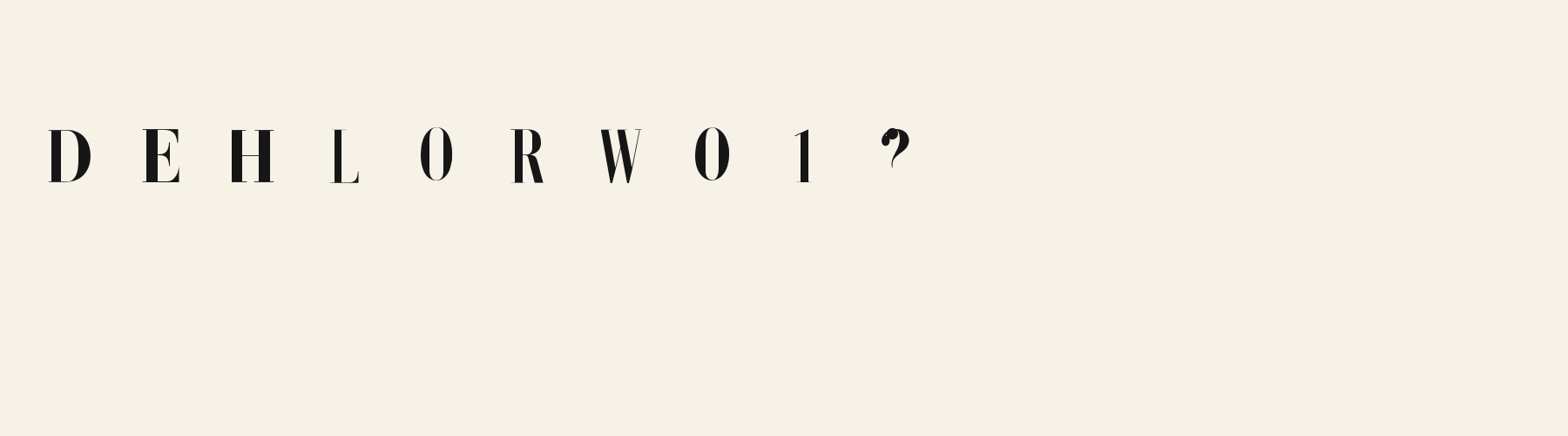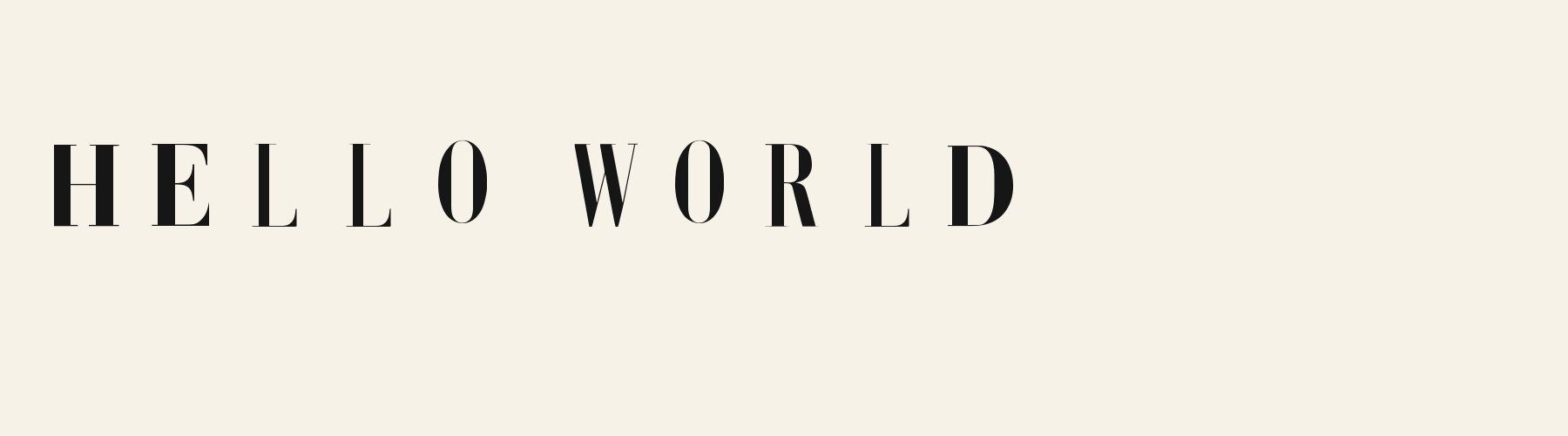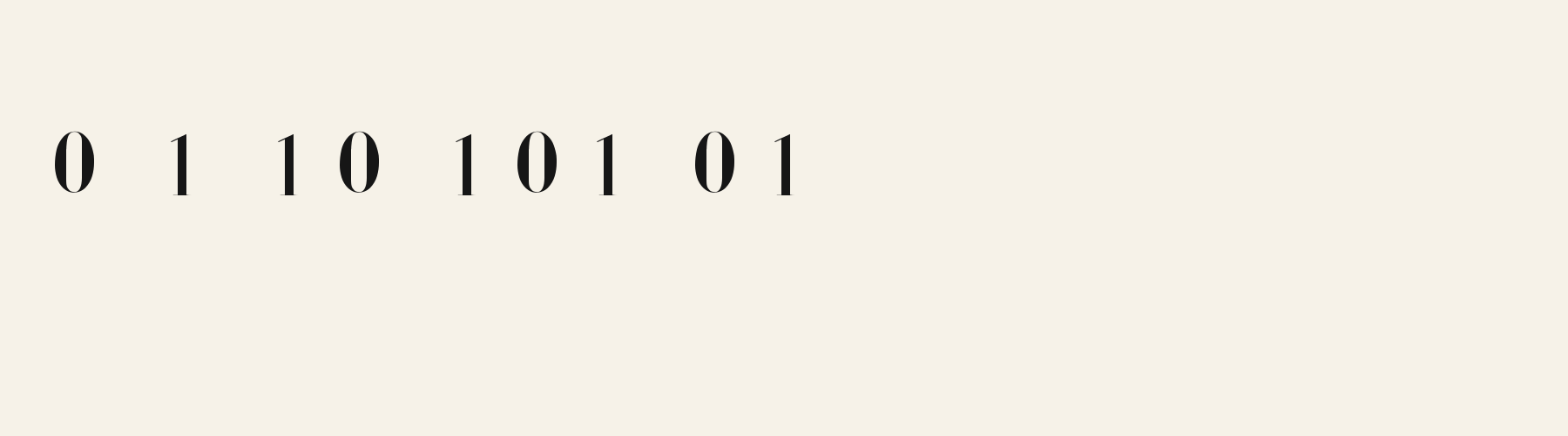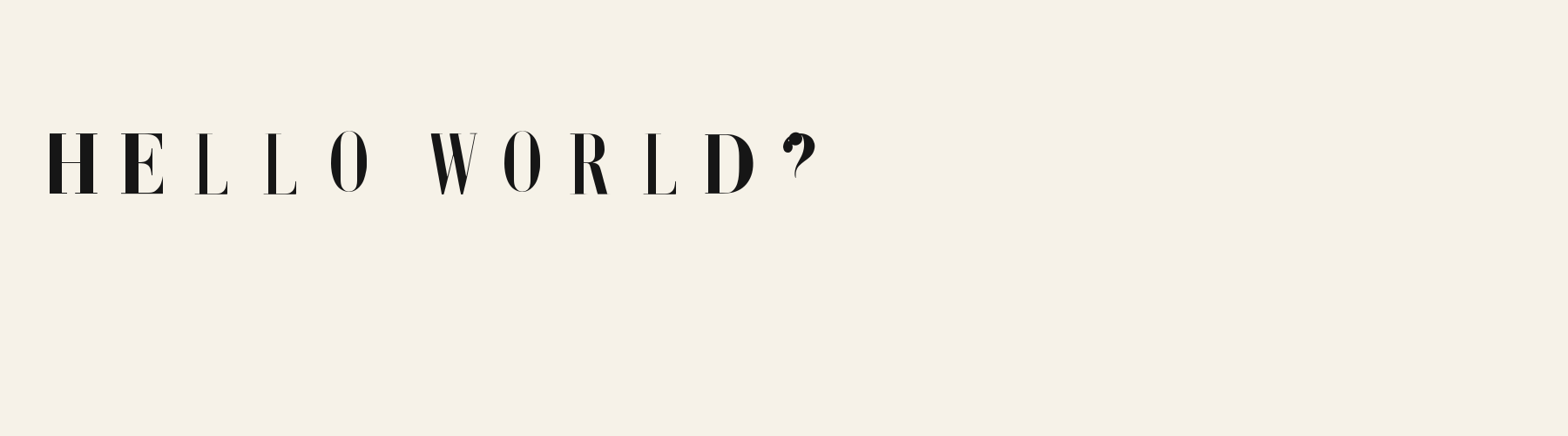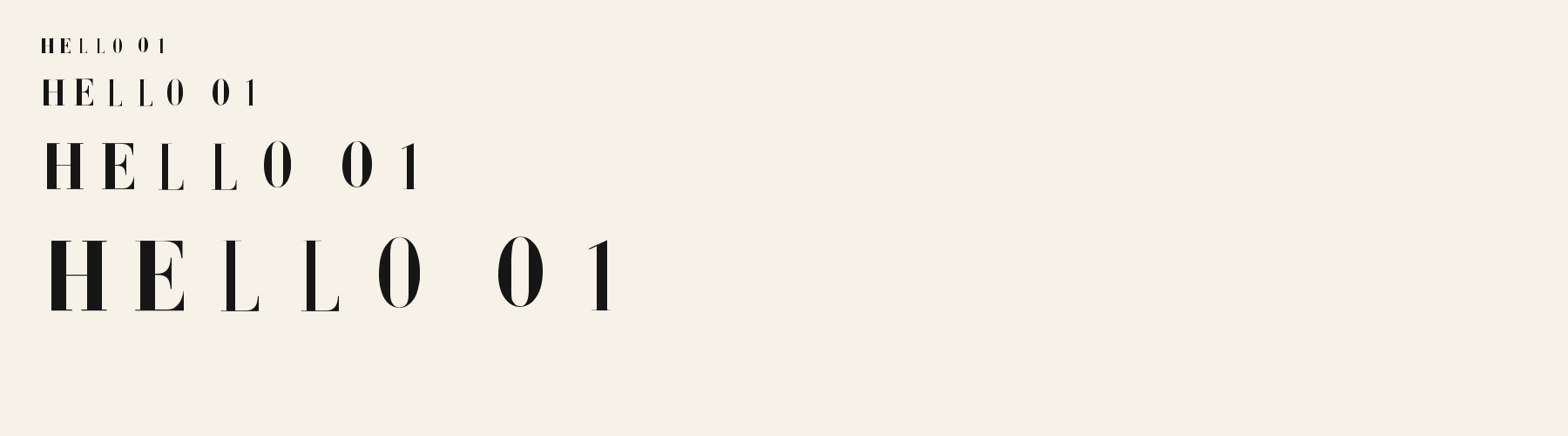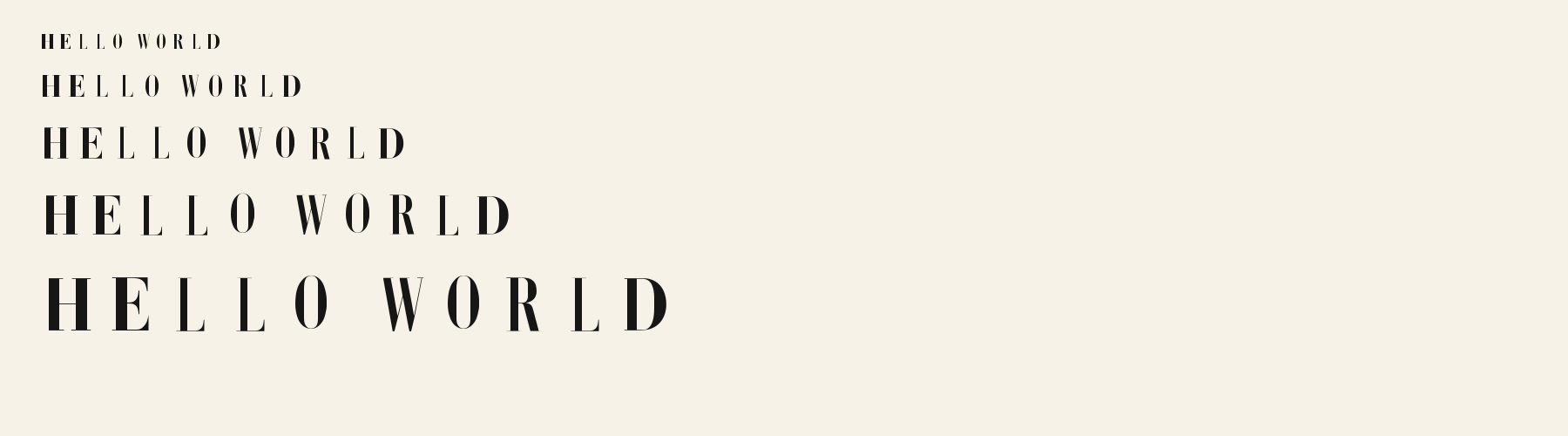
Serif Didone Fashion Needle Crossbar Editorial Font
Serif Didone Fashion pairs heavy vertical strokes with hairline crossbars and flat, unbracketed serifs.
Needle Crossbar Editorial Letterforms
Serif Didone Fashion pairs heavy vertical strokes with hairline crossbars and flat, unbracketed serifs. The H makes that contrast especially clear: its dark uprights are joined by an almost threadlike horizontal. The E has a substantial spine, thin arms and a sharply tapered middle terminal. The R carries a compact upper bowl into a straight diagonal leg, keeping its finish firm rather than curled. In the uppercase specimen, narrow oval counters sit inside dark rounded strokes, while the fine horizontal details give the otherwise weighty letters a crisp, poised editorial mood.
Check the fine H crossbar, E arms and R leg in your actual wording, especially after reduction or reversal. Review letter pairs individually because spacing relies on side bearings. These specimens show Latin capitals; check lowercase separately, and verify another font for accented Latin or other scripts.
Try this face for short headings, with a low-contrast sans for supporting text and practical labels. Its heavy uprights and fragile horizontal details create a distinct heading texture; simpler companion strokes could give longer reading a steadier rhythm.
Compare the original spacing with a slightly wider setting. Extra air can separate the heavy uprights, while tighter spacing brings the fine horizontal serifs closer together; inspect the repeated L letters and the space around W.
In this uppercase wording, Serif Didone Fashion has heavier stems and broader letter bodies. Its R ends in a straight diagonal leg, lending the line a firmer rhythm and a denser silhouette.
Quartz Nocturne shows taller, slimmer uppercase proportions and a narrower O outer contour. Its R leg curls into a rounded terminal, adding a decorative turn absent from the straighter treatment in the supplied comparison.
Book or album cover. Heavy uprights and fine crossbars give a short cover title a clear contrast against generous empty space. AN EVENING TOGETHER
Card or invitation. Flat hairline serifs and upright capitals bring a formal rhythm to an invitation with a short central message. AMBER EXTRACT
Product label. Dark stems give a compact product name presence, while pointed arm terminals keep the lettering crisp.
About Serif Didone Fashion
The x-height is a compact 59.1% of the cap height, below the 69.6% median for serif fonts, the lowest of all 52 serif fonts. Ascenders on b, d, h, k and l stop at 96.9% of the capital height, and descenders on g, j, p, q and y drop 27.6% of the cap height below the baseline, shallower than 36 of the 51 other serif fonts. It sets narrow: an average lowercase letter, spacing included, is 64.8% as wide as the capitals are tall (an average capital, 74.3%), 22.4% less than the median for serif fonts, so more words fit on a line. The o is close to a circle, 0.92 times as wide as it is tall, and no capital is wider than H. The O stops 2.7% of the cap height short of H and dips 1.1% below the baseline.
Ink covers 25.2% of each lowercase letter's box (its advance width by the cap height), lighter than 37 of the 51 other serif fonts.
Its 95 characters include 52 Latin letters, plus 43 figures, punctuation marks and symbols; there are no accented Latin letters beyond A to Z. The word space measures 53.4% of the cap height, and the blank space either side of a lowercase letter takes up 15.4% of its width. The font carries no kerning, so spacing comes from each letter’s own side bearings. The figures have different widths, so columns of numbers set in Serif Didone Fashion will not line up exactly.
- Extreme thick-thin contrast, vertical stress, unbracketed hairline serifs and compact round counters
- High vertical contrast with fine hairlines and crisp slabs
- Catenary Stem Sans (sans serif), Rounded Humanist Terminal (sans serif) and Anchor Script (script) are drawn on a different letter structure, so Serif Didone Fashion can carry the headings while one of them sets the text. Each has its own page with a type tester for trying the pair.
- In the same serif style: Serif Western Slab (heavier strokes, 21% wider); Atelier Light (26% wider, lighter strokes); Headline Slab (67% wider, heavier strokes).